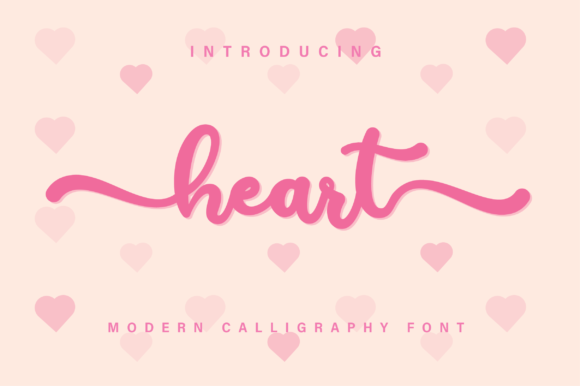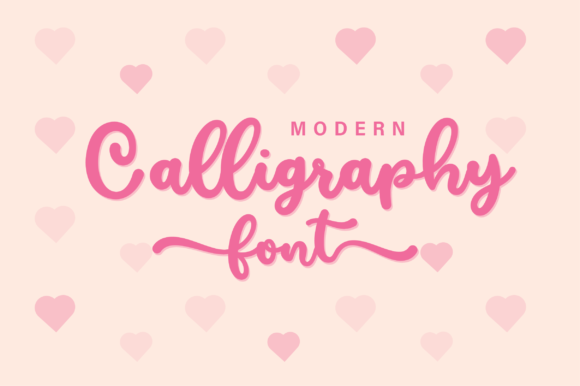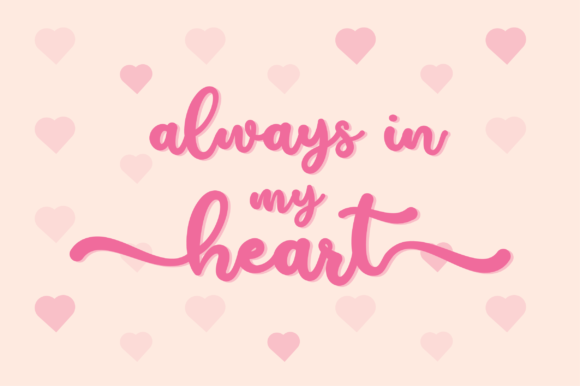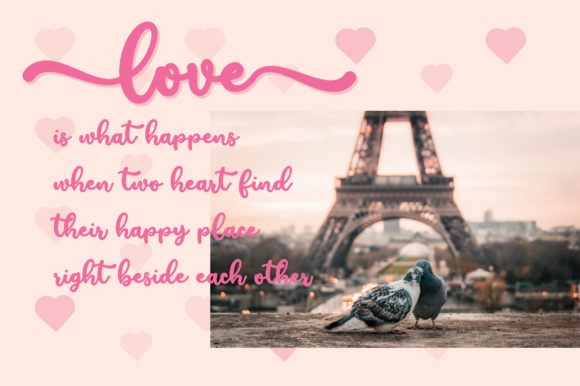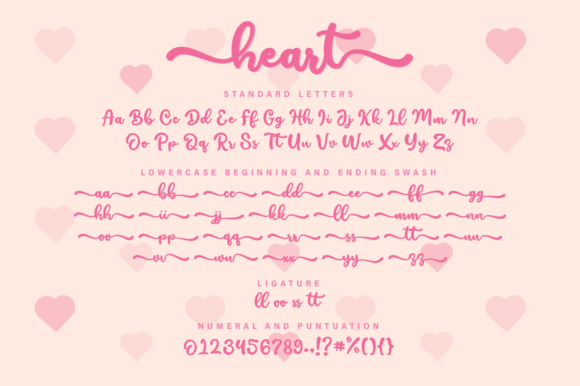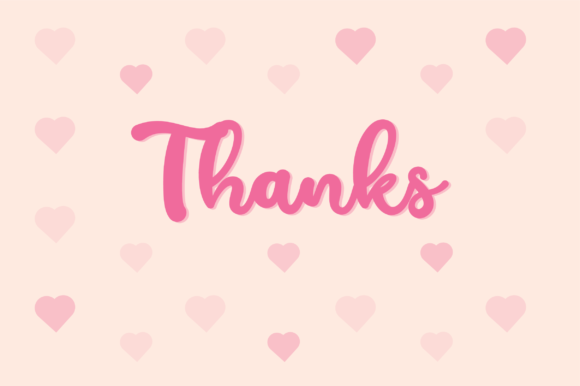
Heart Font
About Heart Font
Heart is a cute and lovely font full of love. It’s the ideal script for any love-themed projects, as well as Valentine’s Day crafts!
This font is PUA encoded which means you can access all of the magical glyphs and swashes with ease! It also features a wealth of special features including alternate glyphs and ligatures.